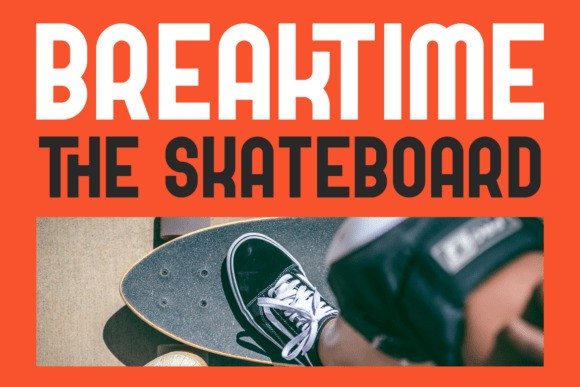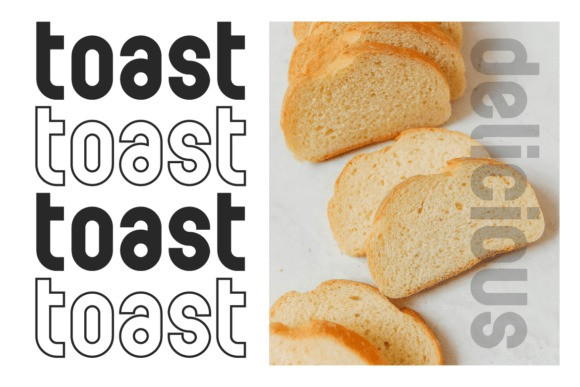
Menante Font
Menante Font is a stylish and versatile sans serif font crafted for designers who seek simplicity with a creative twist. Featuring smooth curves, geometric precision, and subtle design details, Menante delivers a modern yet distinctive aesthetic suitable for branding, editorial layouts, social media graphics, packaging, and website design.